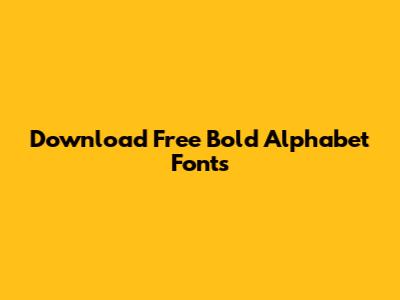
Download Free Bold Alphabet Fonts
Hey guys! Are you on the hunt for some bold alphabet fonts to really make your designs pop? You've landed in the right spot! In this article, we're diving deep into the world of bold fonts, exploring why they're so effective, where you can find them for free, and how to use them to their full potential. Let's get started and give your projects that extra oomph they deserve!
Why Use Bold Fonts?
Let's kick things off by chatting about why bold fonts are such a big deal. It’s not just about making text thicker; it’s about grabbing attention and making a statement. Think of it like this: in a world filled with whispers, bold fonts are the shout that gets heard. Using bold fonts strategically can completely transform your design, making it more engaging and impactful.
Grabbing Attention
In the whirlwind of content we see every day, standing out is crucial. Bold fonts are like the spotlight for your text, instantly drawing the reader's eye. Whether it's a headline, a call to action, or an important piece of information, bold fonts ensure that key elements don't get lost in the shuffle. They create a visual hierarchy, guiding the reader to what matters most. Imagine a poster with a subtle, thin font versus one with a bold, commanding typeface – which one are you more likely to notice first? Exactly!
Creating Emphasis
Ever read a paragraph and wished a particular word or phrase would just jump out at you? That's where bold fonts work their magic. By bolding certain words, you're not just making them visually distinct; you're also signaling their importance. This is super useful in instructional content, where you want to highlight key steps, or in marketing materials, where you want to emphasize benefits or features. It's a simple yet powerful way to control how your message is perceived and remembered.
Improving Readability
Now, you might think that all fonts are equally readable, but that's not quite the case. Bold fonts can actually enhance readability, especially in certain contexts. For instance, on screens or in designs with busy backgrounds, bold text can cut through the clutter and remain clear. Additionally, for people with visual impairments, bolder text can make a significant difference in how easily they can read and comprehend the content. So, it’s not just about aesthetics; it's about accessibility too!
Conveying Confidence and Authority
Think about the messages you see from authoritative sources – they often use bold fonts, right? There's a reason for that. Bold fonts have an innate ability to convey confidence and authority. They make your words feel more substantial and trustworthy. This is particularly valuable in fields like law, finance, and journalism, where credibility is paramount. When you use bold fonts, you're not just presenting information; you're asserting it.
Making a Visual Impact
Last but not least, bold fonts simply make a bigger visual impact. They add weight and presence to your design, making it feel more dynamic and engaging. This is especially effective in branding, where you want your message to be memorable and instantly recognizable. A bold logo or tagline can leave a lasting impression, helping your brand stand out in a competitive market. So, if you’re looking to make a splash, bold fonts are definitely your friend!
Google Fonts
First up, we've got the rockstar of free font resources: Google Fonts. This is like the ultimate playground for typography lovers. Google Fonts boasts a massive collection of fonts, and guess what? Many of them come in bold variations! The beauty of Google Fonts is that everything is open-source, meaning you can use them for personal and commercial projects without any licensing hassles. Plus, they're super easy to integrate into your website or design software. Just head over to the site, filter by font weight (look for the bolds!), and start exploring. You'll find everything from classic serifs to modern sans-serifs, all in glorious bold.
Font Squirrel
Next on our list is Font Squirrel, a gem for anyone serious about typography. Font Squirrel prides itself on offering fonts that are 100% free for commercial use, which is a huge win. They have a carefully curated selection, ensuring that everything you find is top-notch quality. Navigating Font Squirrel is a breeze – you can easily filter by style, weight, and other criteria to find the perfect bold font for your needs. They also offer a handy Font Identifier tool, which can help you figure out what font is being used in an image. How cool is that?
DaFont
If you're looking for variety, DaFont is your go-to spot. This site has a massive, almost overwhelming, collection of fonts submitted by designers from all over the world. While not every font on DaFont is cleared for commercial use (so always double-check the licensing!), there's an incredible range of styles, including tons of bold options. It’s a fantastic place to discover unique and quirky fonts that you won't find anywhere else. Just be sure to read the fine print and respect the designers' terms of use.
Adobe Fonts
For those of you in the Adobe Creative Cloud ecosystem, Adobe Fonts is a goldmine. Included with your Creative Cloud subscription, Adobe Fonts gives you access to thousands of fonts, all fully licensed for commercial use. The selection is incredible, and the integration with Adobe software is seamless. Finding bold fonts is a snap – just browse or filter by weight, and you're good to go. This is a particularly great option if you’re already using Adobe products for your design work.
Other Font Foundries and Websites
Beyond these big players, there are countless other font foundries and websites offering free bold fonts. Sites like Behance and Dribbble often feature free font releases from designers looking to showcase their work. Keep an eye on design blogs and newsletters, as they frequently highlight new free fonts. And don't forget to check out individual font foundries – many offer free trial versions or promotional fonts that include bold weights. The world of free fonts is vast and ever-changing, so there's always something new to discover!
How to Use Bold Fonts Effectively
Alright, you've got your bold fonts ready to roll. Now, let’s make sure you’re using them like a pro. It’s not just about slapping on the bold style and calling it a day; there’s an art to using bold fonts effectively. Here are some tips to help you make the most of these attention-grabbing typefaces.
Headlines and Titles
First up, headlines and titles are prime real estate for bold fonts. Think of your headline as the first impression – it’s what draws readers in and sets the tone for your content. Using a bold font here is a no-brainer. It grabs attention, creates a strong visual hierarchy, and tells people what your content is all about. Just make sure your bold headline font pairs well with the body text font. You want contrast, but also harmony.
Emphasizing Key Words and Phrases
Remember when we talked about emphasis? Bold fonts are your best friend for highlighting key words and phrases within your text. This is perfect for guiding readers through important information, call-to-actions, or crucial points. But a word of caution: don’t go overboard. If everything is bold, then nothing stands out. Use bold strategically, like seasoning in a dish – just the right amount can make all the difference.
Call-to-Actions
Speaking of call-to-actions, bold fonts can seriously boost their effectiveness. A bold call-to-action button or text link is like a beacon, guiding users to take the desired action. Whether it’s “Sign Up Now,” “Learn More,” or “Download Free Ebook,” bolding those words makes them pop and encourages clicks. It’s a simple tweak that can have a big impact on your conversion rates.
Logos and Branding
Bold fonts are a staple in logo design and branding for a reason. They convey strength, confidence, and a sense of authority. A bold logo can make your brand instantly recognizable and memorable. Think about brands like FedEx or Adidas – their logos use bold fonts to project a sense of stability and power. When choosing a font for your logo, consider what message you want to send, and don't underestimate the impact of a bold typeface.
Creating Visual Hierarchy
Visual hierarchy is all about guiding the reader’s eye through your content in a logical way. Bold fonts play a crucial role in creating this hierarchy. By using different font weights and sizes, you can signal the relative importance of different elements on the page. Bold fonts naturally draw attention, so use them for the most important information, and then use lighter weights for supporting text. This helps readers scan your content quickly and understand the key takeaways.
Legibility and Accessibility
While bold fonts can enhance legibility in many cases, it’s important to use them judiciously. Overusing bold fonts, especially in long blocks of text, can actually tire the eyes. Stick to using bold for shorter bursts of text, like headings or emphasized words. Also, consider accessibility – bold fonts can be particularly helpful for readers with visual impairments, but make sure your font choices are clear and readable in different sizes and on different devices.
Pairing Bold Fonts with Other Styles
The secret sauce to great typography is font pairing. When using bold fonts, think about how they interact with other font styles in your design. A classic pairing is a bold headline with a lighter-weight body text. This creates a nice contrast while maintaining readability. You can also pair a bold sans-serif with a more delicate serif font for a sophisticated look. Experiment with different combinations to find what works best for your project, but always aim for balance and harmony.
So there you have it – a deep dive into the world of bold alphabet fonts! We've covered why they're so effective, where to find them for free, and how to use them like a pro. Bold fonts are a powerful tool in any designer's arsenal, capable of grabbing attention, creating emphasis, and conveying confidence. But like any tool, they're most effective when used with skill and intention.
Whether you're designing a logo, crafting a headline, or just trying to make your text pop, bold fonts can help you achieve your goals. So go ahead, experiment with different styles, find your favorites, and start making your designs bolder and better than ever. Happy font hunting, guys!